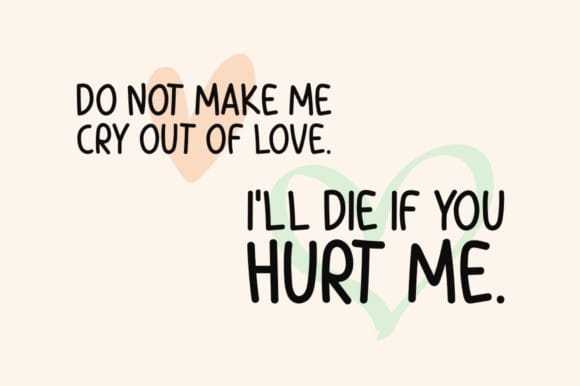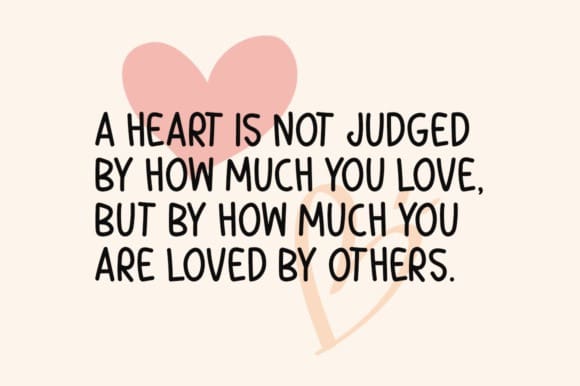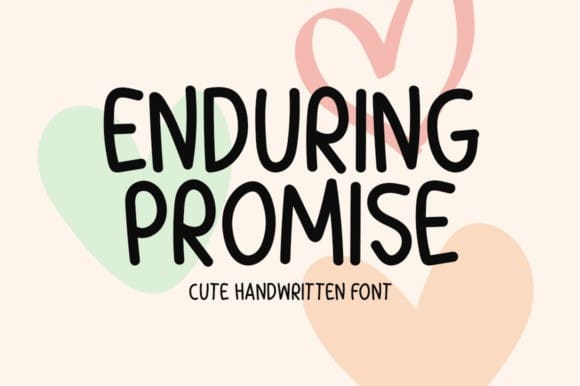
Enduring Promise Font
Enduring Promise Font is an incomparable, simple-lettered, handwritten font. It can easily be matched to an incredibly large set of projects, so add it to your creative ideas and notice how it makes them stand out!